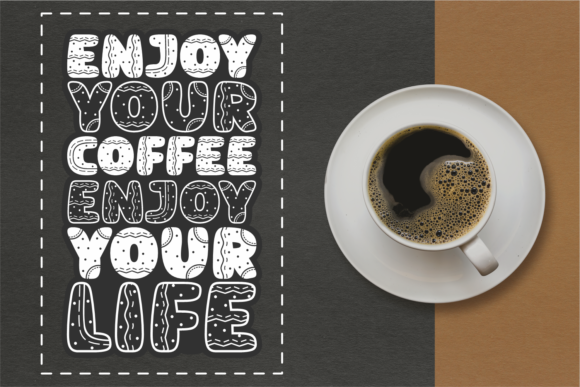
Mona Cake is a delicious-looking decorative font. Its bold and cookie-like characters will perfectly complement a bakery logo, restaurant decor, cafe logos, menus, Christmas designs, or anything children-related.